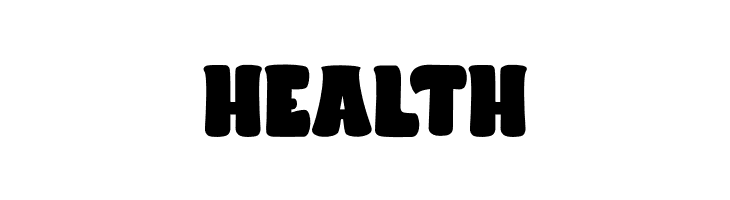
• AMOceanus Bold
A bold, geometric font with a modern, digital aesthetic.
• Amodia Charlote Free
A delicate, flowing script font with elegant, continuous strokes.
• Amoeba Square
A playful, bold font with rounded, organic shapes and a whimsical touch.
• AmoebaTs
A whimsical, decorative font with amoeba-like, abstract characters.
• Among Dead Priest
A bold, grunge-style font with jagged, distressed characters.
• Among Personal Use
A modern, narrow font with elongated characters and a sleek, sophisticated style.
• Among You
A bold, rounded font with a playful and modern style.
• Among You
A bold, playful font with rounded edges and a modern touch.
• Amongh Sein
A playful, cursive script font with interconnected characters and a hand-drawn feel.
• Amongh Sein Italic
A dynamic, cursive italic font with fluid strokes and elegant style.
• Amongus
A playful, hand-drawn font with a quirky, doodle-like style.
• Amonk
A bold, rounded font with a playful and chunky style.
• Amonk
A bold, playful font with rounded edges and a retro vibe.
• Amonk Blood
A bold, dripping font perfect for horror or Halloween themes.
• Amonk Ice
A bold, dripping effect font with a playful and eerie style.
• Amonk Outline
A bold, playful font with a unique dripping effect, ideal for eye-catching designs.
• Amonk-Blood
A bold, dripping font ideal for horror themes.
• Amonk-Ice
A bold, dripping font with a melting ice effect, perfect for creative projects.
• Amonk-Outline
A bold, decorative font with a dripping effect, ideal for creative and thematic projects.
• Amontilladios
A flowing, cursive font with elegant, sweeping lines and intricate flourishes.
• Amontillado